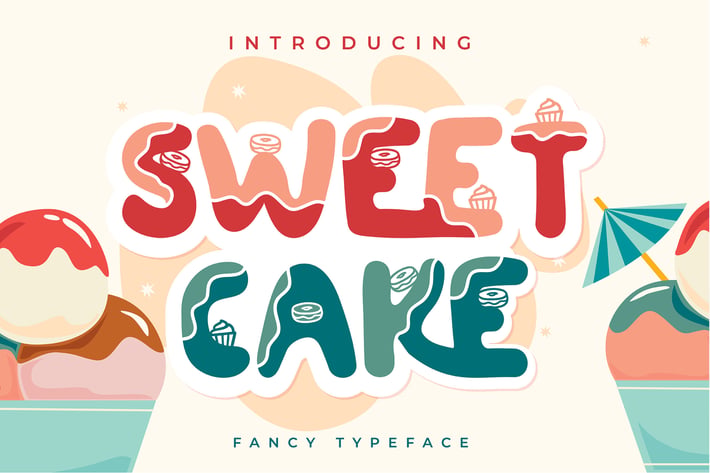
Sweet Cake | Fancy Typeface
Sweet Cake | Fancy Typeface with a calligraphy style, So beautiful on invitation like greeting cards, branding materials, business cards, quotes, posters, and more!